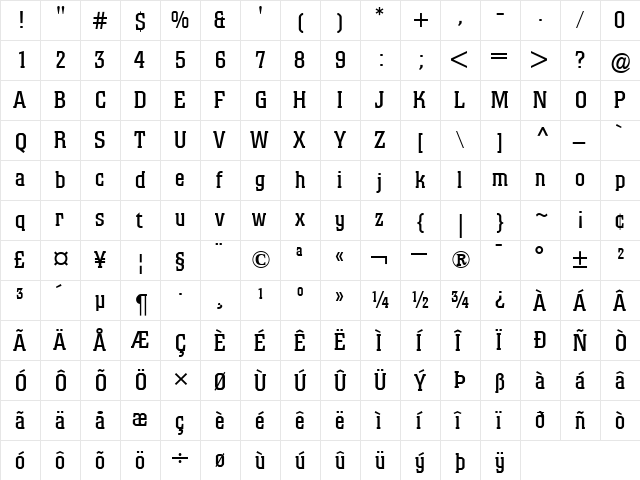
Colossalis Roman
Design Context for Colossalis Typeface
Colossalis is a composed and adaptable typeface that performs quietly and consistently across a wide range of design contexts.
Pro Tip: Pair Colossalis with a font of contrasting weight or personality to build a more expressive typographic hierarchy.